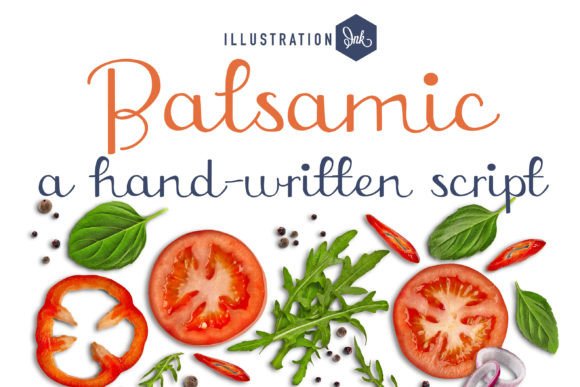
Balsamic Font: A Handwritten Script with a Crafty Feel
The Balsamic Font is a casual, upright script with a crafty feel that is perfect for adding a personal touch to your designs. This hand-written font is designed to look like it was written by hand, with a unique and charming appearance that sets it apart from more traditional fonts. In this article, we’ll take a closer look at the Balsamic Font and explore the characteristics of handwritten fonts, as well as their uses and benefits.
What is a Handwritten Font?
A hand-crafted font, also known as a handwritten font, is a font that is designed to look like it was written by hand. These fonts are often used for invitations, greeting cards, and other items where a personal touch is desired. Handwritten fonts can be either formal or informal, and they can be used for a variety of purposes, from creative projects to corporate branding.
Characteristics of Handwritten Fonts
Handwritten fonts have several distinct characteristics that set them apart from other types of fonts. Some of the most common characteristics of handwritten fonts include:
- The letters are not perfectly uniform in size or shape.
- There may be slight variations in the spacing between letters and words.
- The font may have a “wiggly” or “squiggly” appearance.
- The font may be difficult to read at small sizes.
Benefits of Using Handwritten Fonts
Handwritten fonts can be a great way to add a casual touch to your designs. They can also be used to create a sense of nostalgia or whimsy, making them perfect for projects where you want to evoke a sense of warmth and personality. Some of the benefits of using handwritten fonts include:
- Adding a personal touch to your designs.
- Creating a sense of nostalgia or whimsy.
- Standing out from more traditional fonts.
- Adding a touch of elegance or sophistication.
Choosing the Right Handwritten Font
While handwritten fonts can be a great addition to your designs, it’s essential to choose the right font for your project. A formal handwritten font may not be appropriate for a casual invitation, while an informal handwritten font may not be suitable for a corporate document. When choosing a handwritten font, consider the following factors:
- The tone and purpose of your project.
- The audience and target demographic.
- The level of formality or informality desired.
Balsamic Font: A Closer Look
The Balsamic Font is a casual, upright script with a crafty feel that is perfect for adding a personal touch to your designs. This hand-written font is designed to look like it was written by hand, with a unique and charming appearance that sets it apart from more traditional fonts. The Balsamic Font comes in three weights, making it versatile and suitable for a variety of projects.
Using Balsamic Font in Your Designs
The Balsamic Font is a versatile font that can be used in a variety of projects, from creative endeavors to corporate branding. Here are some ideas for using the Balsamic Font in your designs:
- Invitations and greeting cards.
- Posters and flyers.
- Social media graphics and branding.
- Packaging and labeling.
Tips for Working with Handwritten Fonts
Working with handwritten fonts can be a bit tricky, but with a few tips and tricks, you can get the most out of your font. Here are some tips for working with handwritten fonts:
- Use a clear and legible font.
- Pay attention to spacing and kerning.
- Use the font in moderation.
- Experiment with different weights and styles.
The Balsamic Font is a unique and charming handwritten font that is perfect for adding a personal touch to your designs. With its crafty feel and casual, upright script, this font is versatile and suitable for a variety of projects. By understanding the characteristics and benefits of handwritten fonts, you can choose the right font for your project and create designs that stand out from the crowd.